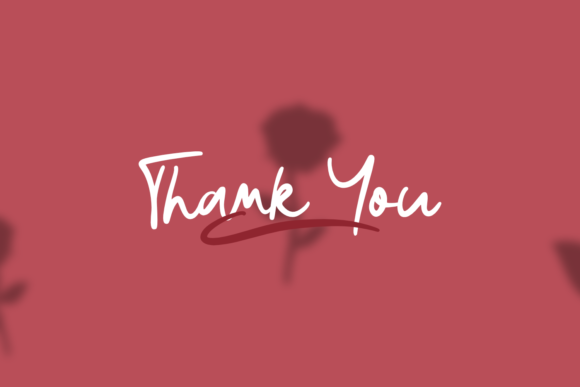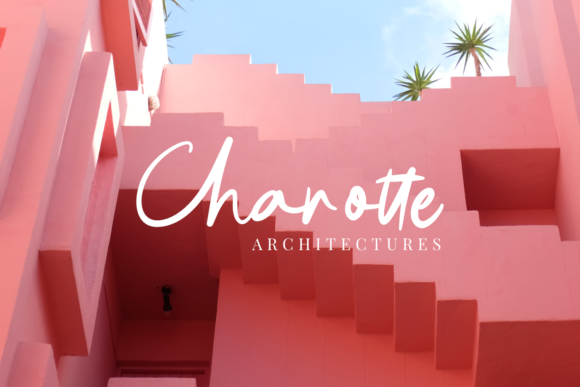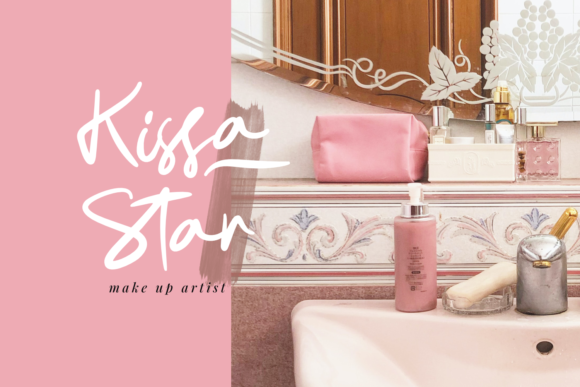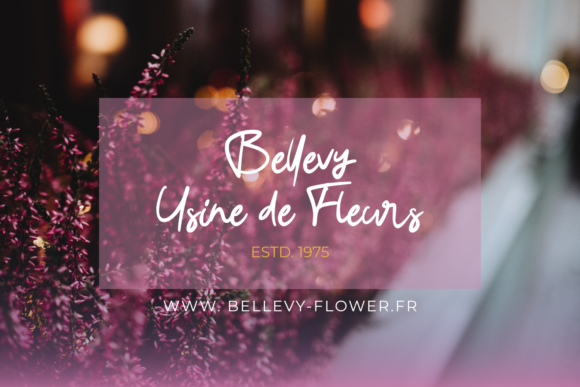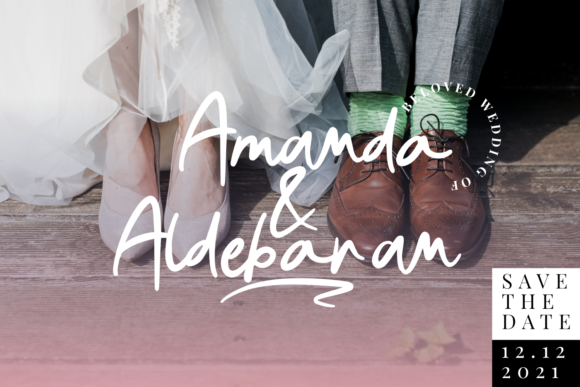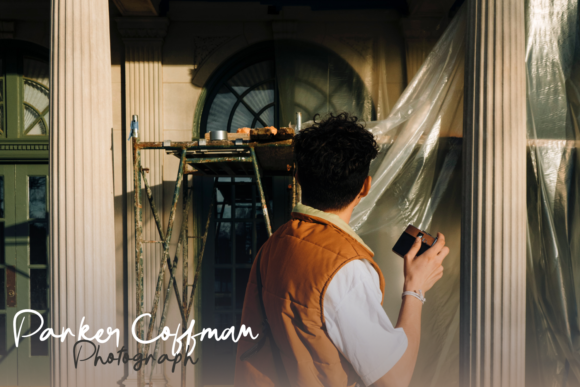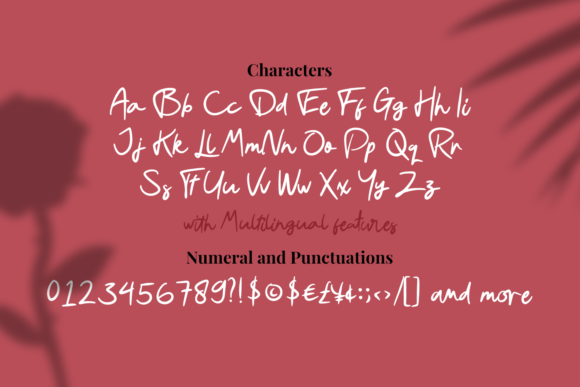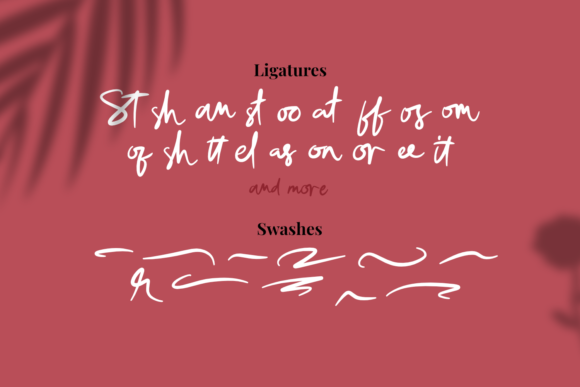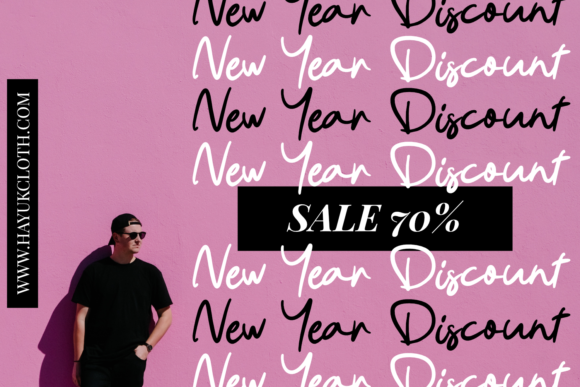
Rosallia Font
About Rosallia Font
Rosallia is a lovely handwritten font that adds a touch of adventure and authenticity to your design ideas. With its charming and expressive letterforms, this font brings a unique and captivating vibe to your projects.
The beauty of Rosallia lies in its handwritten style, which creates a sense of warmth and personalization. The organic flow of the letters and the subtle variations in stroke width give the font a natural and authentic feel. It’s as if each letter has been carefully crafted by hand, adding a personal touch to your designs.
Whether you’re working on a logo, branding materials, invitations, or any other design project, Rosallia brings a sense of adventure and wanderlust. Its playful and expressive nature makes it perfect for projects that evoke a sense of exploration, travel, and discovery.
Rosallia’s versatility allows it to be used in various design contexts. It can be applied to both digital and print designs, and it pairs well with other complementary fonts and design elements. Its legibility ensures that your message is conveyed clearly, while its distinctive style adds visual interest and personality.
One of the strengths of Rosallia is its ability to evoke emotions and create a connection with the viewer. Its handwritten appearance creates an intimate and personal feel, making your designs more relatable and engaging. Whether you’re aiming for a whimsical and lighthearted tone or a more nostalgic and sentimental atmosphere, Rosallia can help you achieve the desired effect.
Furthermore, Rosallia is highly adaptable to different design themes and styles. It can work seamlessly with both modern and vintage aesthetics, adding a touch of character and charm to your compositions. The font’s versatility allows you to experiment and explore various creative directions, making it an excellent choice for your next design project.
In summary, Rosallia is a lovely handwritten font that infuses your designs with an adventurous and authentic feel. Its expressive and organic letterforms create a personal and captivating touch, while its versatility allows it to be used in a wide range of design contexts. By incorporating Rosallia into your next design idea, you can add a sense of charm and individuality that resonates with your audience.